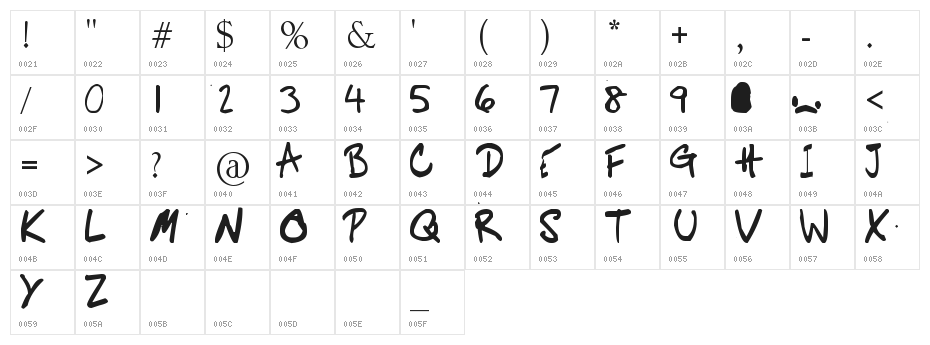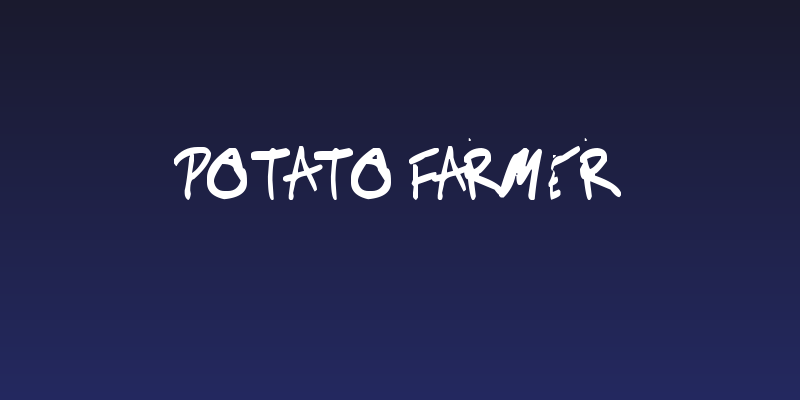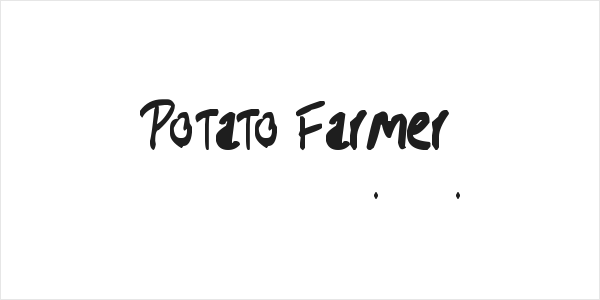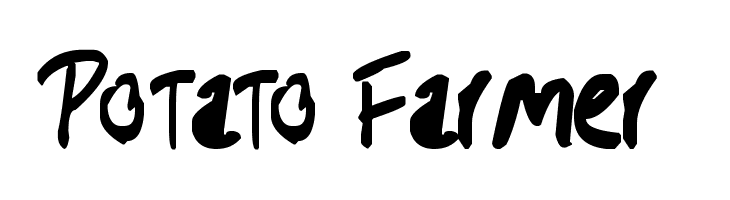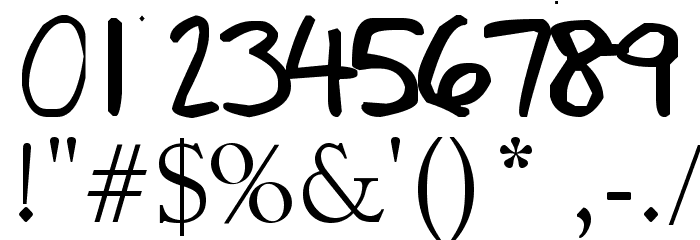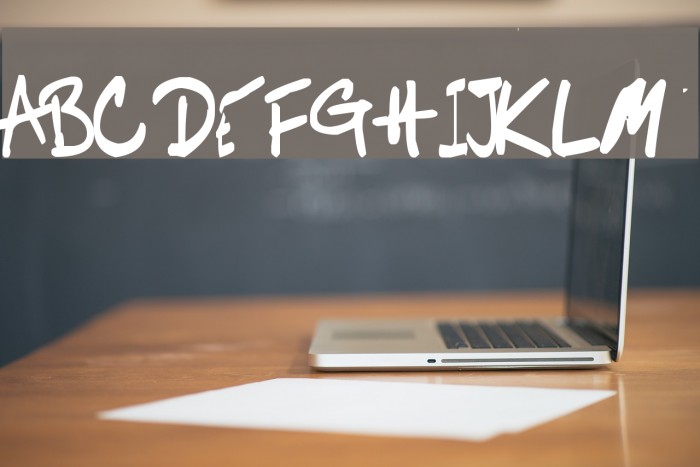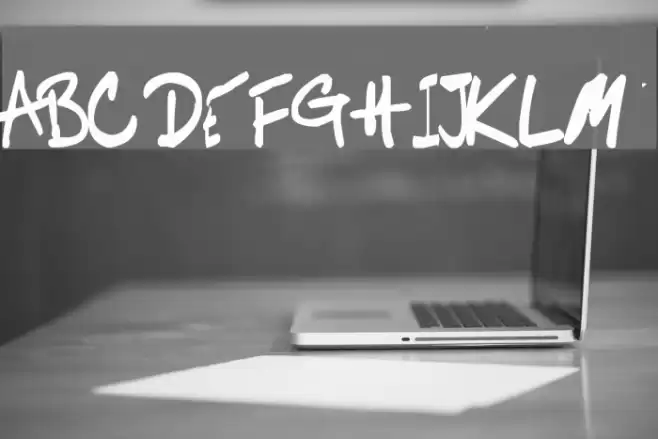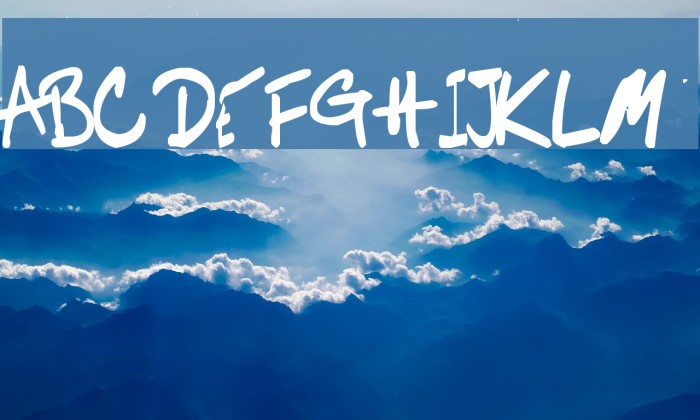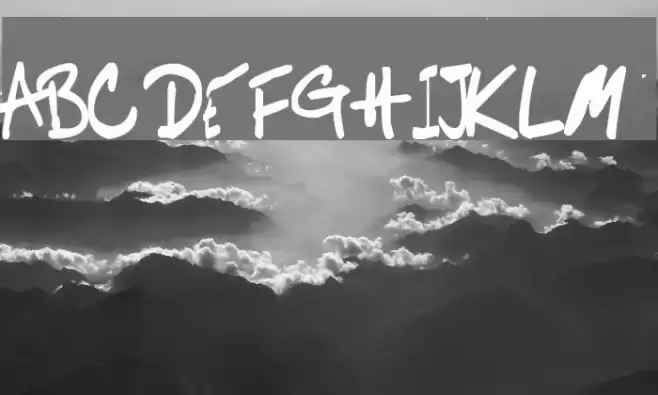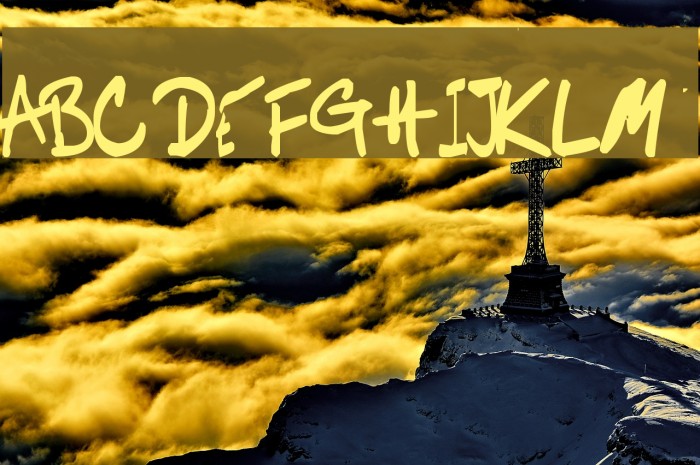
Potato Farmer Font
Potato Farmer Description
This font features a bold, handwritten style with a playful and energetic appearance. The characters are irregular and dynamic, with varying stroke thickness that adds a sense of movement and personality. The uppercase and lowercase letters are distinct, with a casual, informal feel that suggests spontaneity. Numbers and special characters maintain the same lively aesthetic, making the font suitable for creative and expressive projects. The overall look is both artistic and approachable, perfect for designs that aim to capture attention with a personal touch.